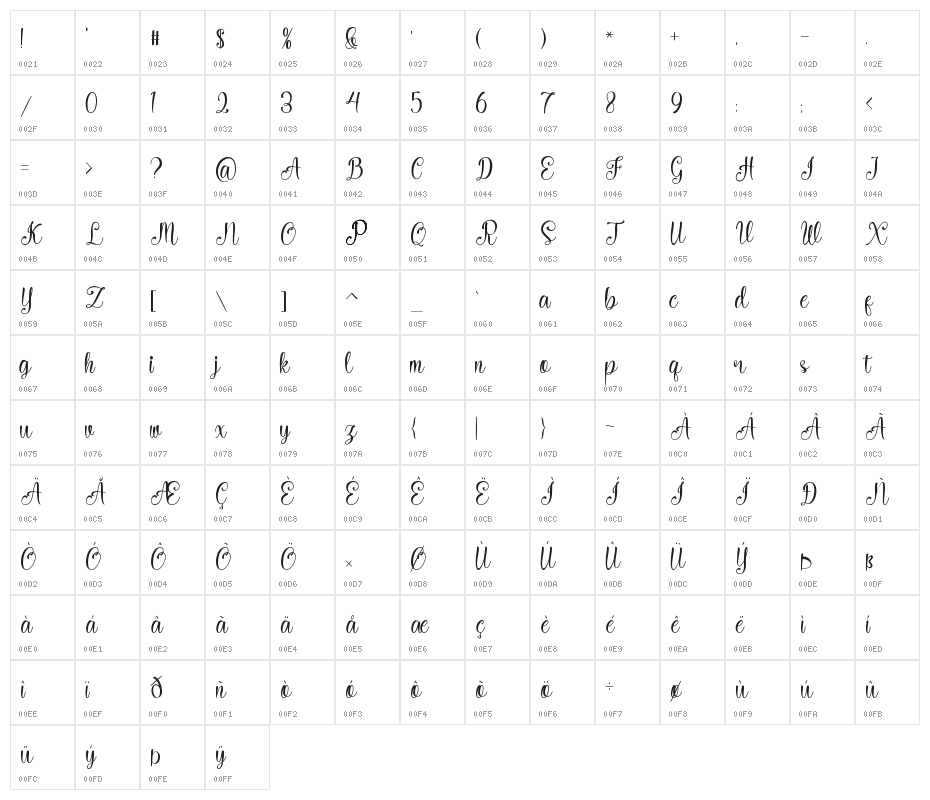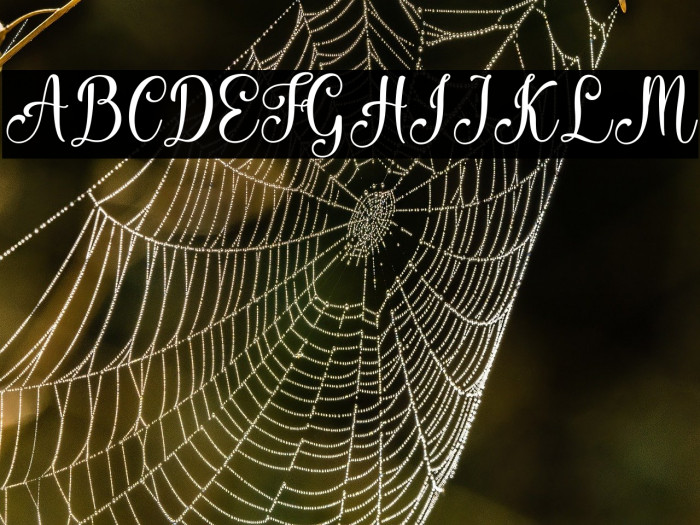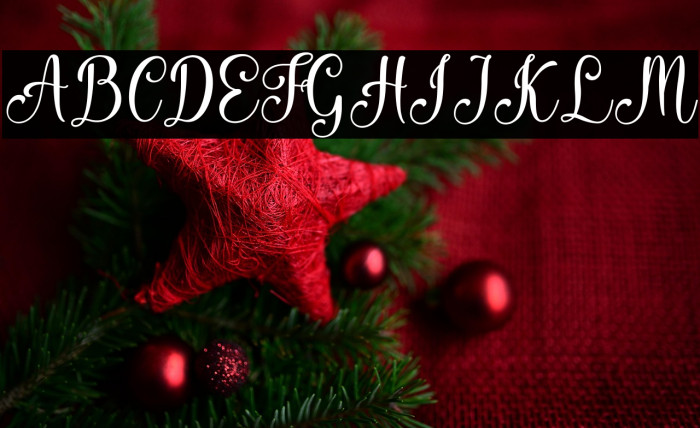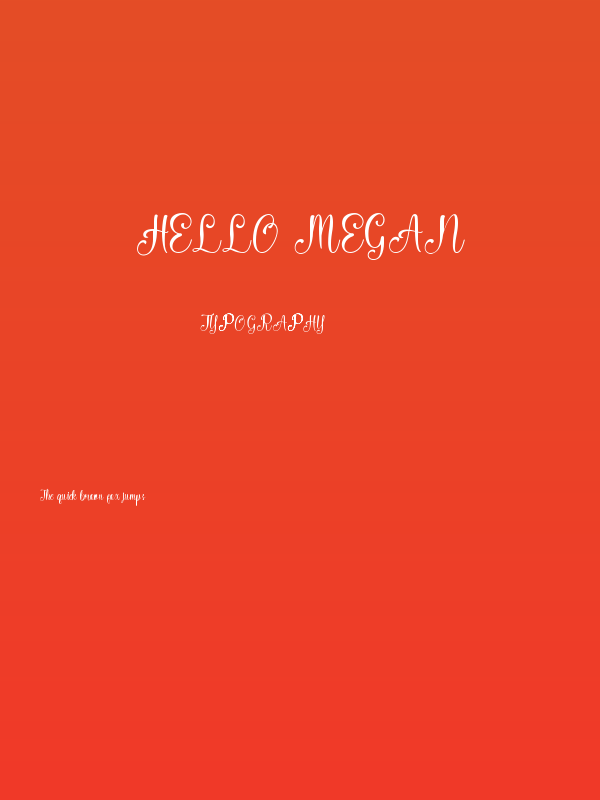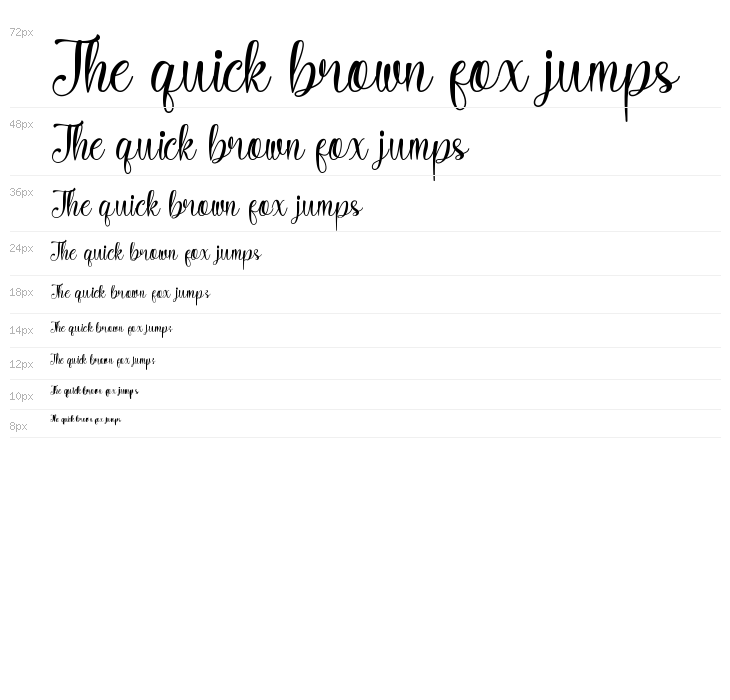
Hello megan Font
Hello megan Description
This font features a playful and elegant script style with a handwritten touch. The uppercase letters are characterized by their flowing curves and loops, giving them a whimsical appearance. The lowercase letters maintain a consistent style, with smooth connections between strokes, enhancing the font's fluidity. Numbers and special characters are designed to match the overall aesthetic, ensuring a cohesive look across all text. The font's decorative nature makes it suitable for creative and expressive projects, where a personal touch is desired.
| Proposed Projects | Ideal for wedding invitations, greeting cards, branding, and social media graphics. |